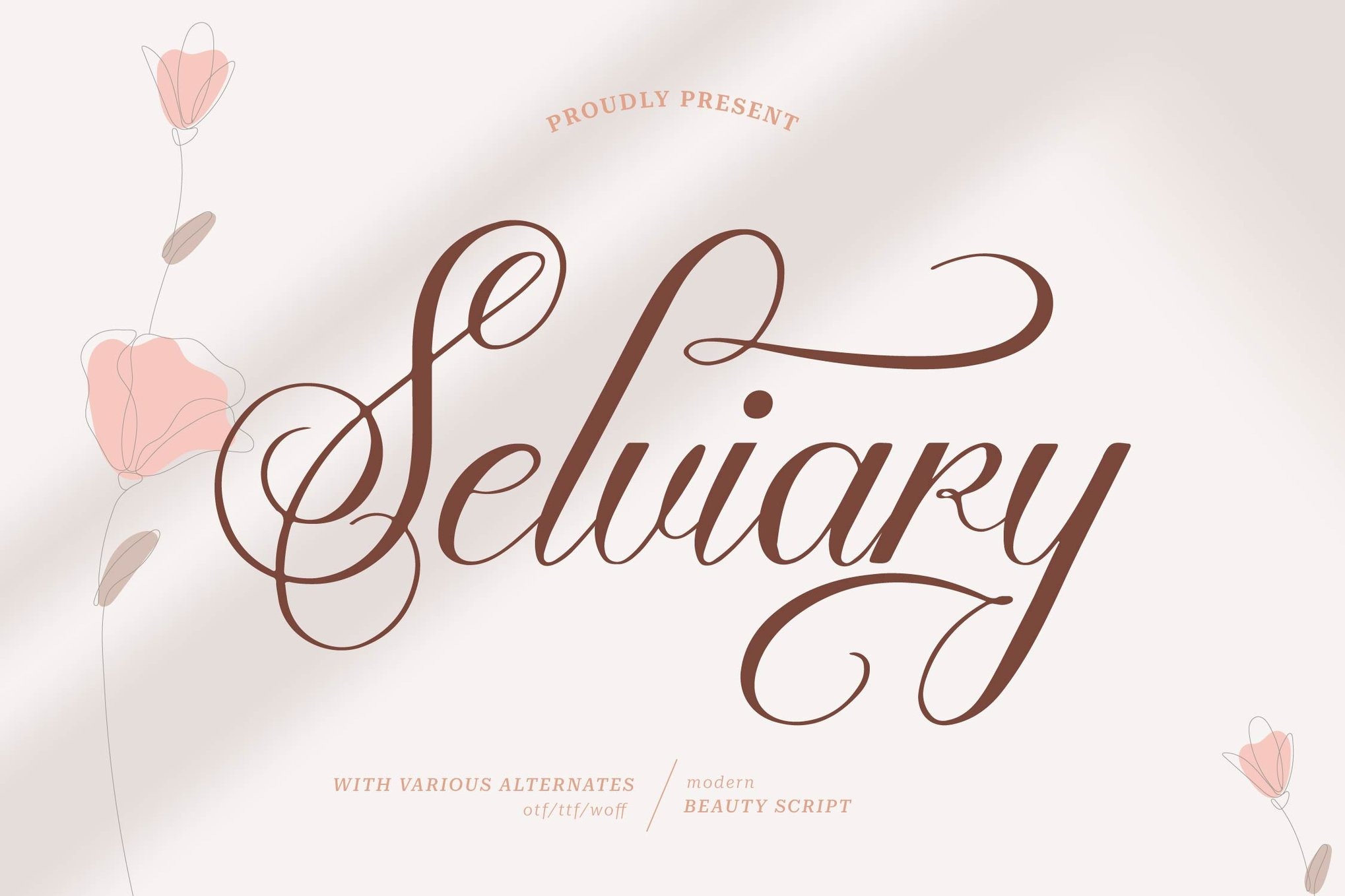
Selviaire – Elegant Script Font
Selviaire – Elegant Script Font is a versatile font designed to adapt beautifully across different design styles, offering dependable readability and balance. Selviary | Beauty Script is designed to deliver a strong and versatile visual character, balancing aesthetics and readability. Every detail is carefully crafted to ensure a clear, consistent, and visually appealing result across a wide range of design needs.
With well-structured letter proportions and support for features such as alternate characters and ligatures, this font allows for greater creative exploration. The final result is dynamic, distinctive, and professional, making it adaptable to various design styles.